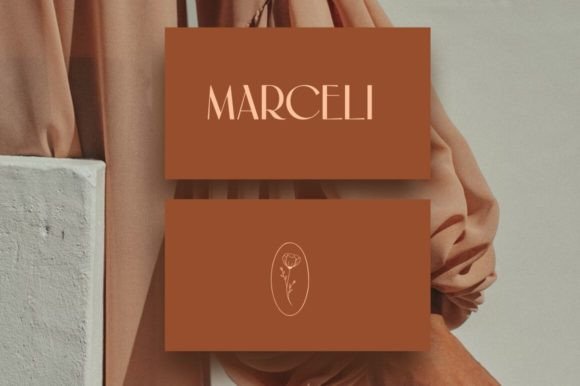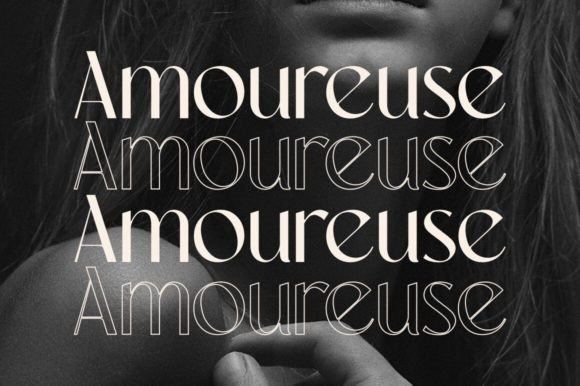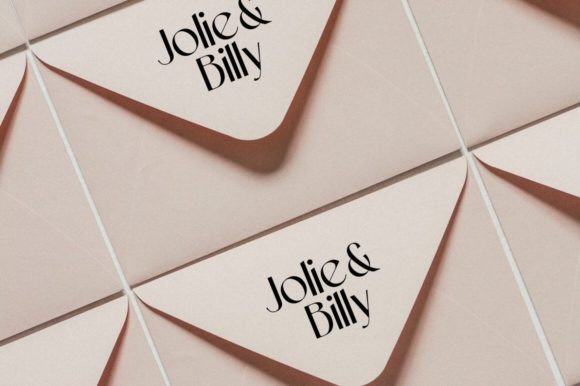
Introduction to Florie Font Font
Fonts play a crucial role in design, and the Florie Font font is a typeface that brings both character and versatility to any project. Whether you’re working on a branding project, a website, or a print design, the Florie Font font offers a unique style that can elevate your work.
Introducing Florie.
It is a beautiful sans serif font With its sleek lines and modern elegance, it can be the best solutions to make their design look more beauty and modern.
Key Features of Florie Font Font
Why Choose Florie Font Font?
The Florie Font font is more than just a typeface – it’s a design tool that helps you communicate your message with style and clarity. Its unique character set and versatile design make it suitable for a wide range of applications, from elegant invitations to bold headlines.
With its carefully crafted letterforms and balanced proportions, the Florie Font font ensures readability and visual appeal across all mediums.
What makes Florie Font font special?
The Florie Font font stands out with its unique design, exceptional readability, and versatility across various design applications.